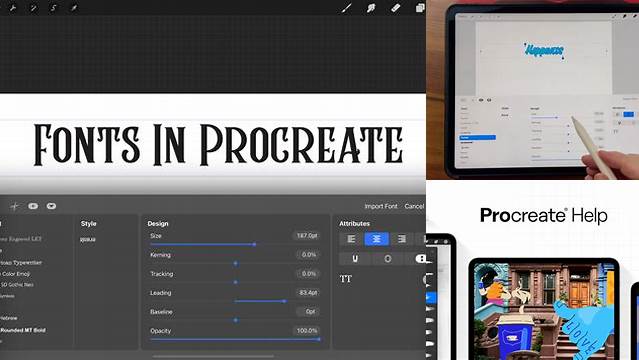
Use Adobe Fonts In Procreate On IPad: A Simple Guide
Hey guys! Ever wondered how to jazz up your Procreate masterpieces on your iPad with some slick Adobe fonts? Well, you're in the right place! In this article, we're diving deep into the world of Adobe Fonts and how you can seamlessly integrate them into your Procreate workflow. We'll cover everything from activating your fonts to troubleshooting common issues, ensuring your creative journey is smooth and productive.
Why Use Adobe Fonts in Procreate?
First off, let's talk about why you'd even want to bother with Adobe Fonts in Procreate. Procreate is fantastic, but its native font selection can feel a bit limited. Adobe Fonts, on the other hand, offers a massive library of high-quality, professional fonts that can really elevate your artwork. Think of it as upgrading from a basic set of crayons to a full artist's palette. With Adobe Fonts, you get access to a diverse range of typefaces, from elegant serifs to modern sans-serifs, and quirky display fonts. This means you can find the perfect font to match the mood and style of your project, whether you're creating a vintage poster, a sleek logo, or a whimsical illustration. Plus, Adobe Fonts are professionally designed, ensuring they look great at any size and in any context. They're optimized for both print and digital use, so you can be confident that your text will always be legible and visually appealing. By integrating Adobe Fonts into Procreate, you're not just adding text; you're adding a layer of sophistication and polish that can set your work apart. You're giving yourself the creative freedom to express your vision exactly as you imagine it, without being limited by the default options. And let's be honest, who doesn't want their artwork to look its absolute best?
Using Adobe Fonts in Procreate
Alright, you've got your Adobe Fonts activated and ready to roll. Now, let's get into how you actually use them in Procreate. Open up Procreate and either create a new canvas or open an existing project. To add text, tap the wrench icon in the top left corner of the screen to open the Actions menu. Then, tap "Add" and select "Add Text". A text box will appear on your canvas, and the keyboard will pop up. Type in your desired text. Now, to change the font, tap the "Aa" icon in the top right corner of the screen. This will open the text editing panel. In the text editing panel, you'll see a dropdown menu labeled "Font". Tap this menu to reveal the list of available fonts. Scroll through the list until you find the Adobe Font you want to use. You should see all the fonts you activated earlier in the Creative Cloud app. Select your desired font, and the text in your text box will update to reflect the new font. From here, you can further customize your text by adjusting the size, kerning, tracking, leading, and color. You can also apply various text styles, such as bold, italic, and underline. Experiment with different settings to achieve the perfect look for your text. Once you're happy with your text, tap the canvas outside of the text box to commit the changes. Your text will now be a permanent part of your Procreate artwork. You can move, scale, rotate, and transform the text layer just like any other layer in Procreate. And that's it! You're now a pro at using Adobe Fonts in Procreate. Go forth and create beautiful typography!
Tips and Tricks for Using Fonts Effectively
Now that you know how to get Adobe Fonts into Procreate, let's talk about how to use them effectively. Typography is an art form in itself, and choosing the right font can make a huge difference in the overall impact of your artwork. Here are a few tips and tricks to help you make the most of your fonts. First, choose fonts that are appropriate for your project. Consider the mood, style, and target audience of your artwork. A playful, whimsical font might be perfect for a children's book illustration, but it would be out of place in a corporate logo. Second, limit the number of fonts you use. Using too many different fonts can make your design look cluttered and confusing. As a general rule, stick to two or three fonts at most. Third, pay attention to hierarchy. Use different font sizes, weights, and styles to create a visual hierarchy that guides the viewer's eye. The most important information should be the most prominent, while less important information can be smaller and less noticeable. Fourth, be mindful of readability. Choose fonts that are easy to read, especially for body text. Avoid overly decorative or stylized fonts that can be difficult to decipher. Fifth, experiment with different font combinations. Try pairing a serif font with a sans-serif font, or a bold font with a light font. The possibilities are endless! Sixth, kerning and tracking are your friends. Adjust the spacing between letters and words to improve readability and visual appeal. Seventh, don't be afraid to break the rules. Once you understand the basic principles of typography, feel free to experiment and push the boundaries. The most important thing is to have fun and create something that you're proud of.
So there you have it, guys! A comprehensive guide to using Adobe Fonts in Procreate on your iPad. By following these steps and tips, you can unlock a whole new level of creativity and take your artwork to the next level. Remember, typography is a powerful tool, so use it wisely. Experiment, explore, and most importantly, have fun! Now go forth and create something amazing!